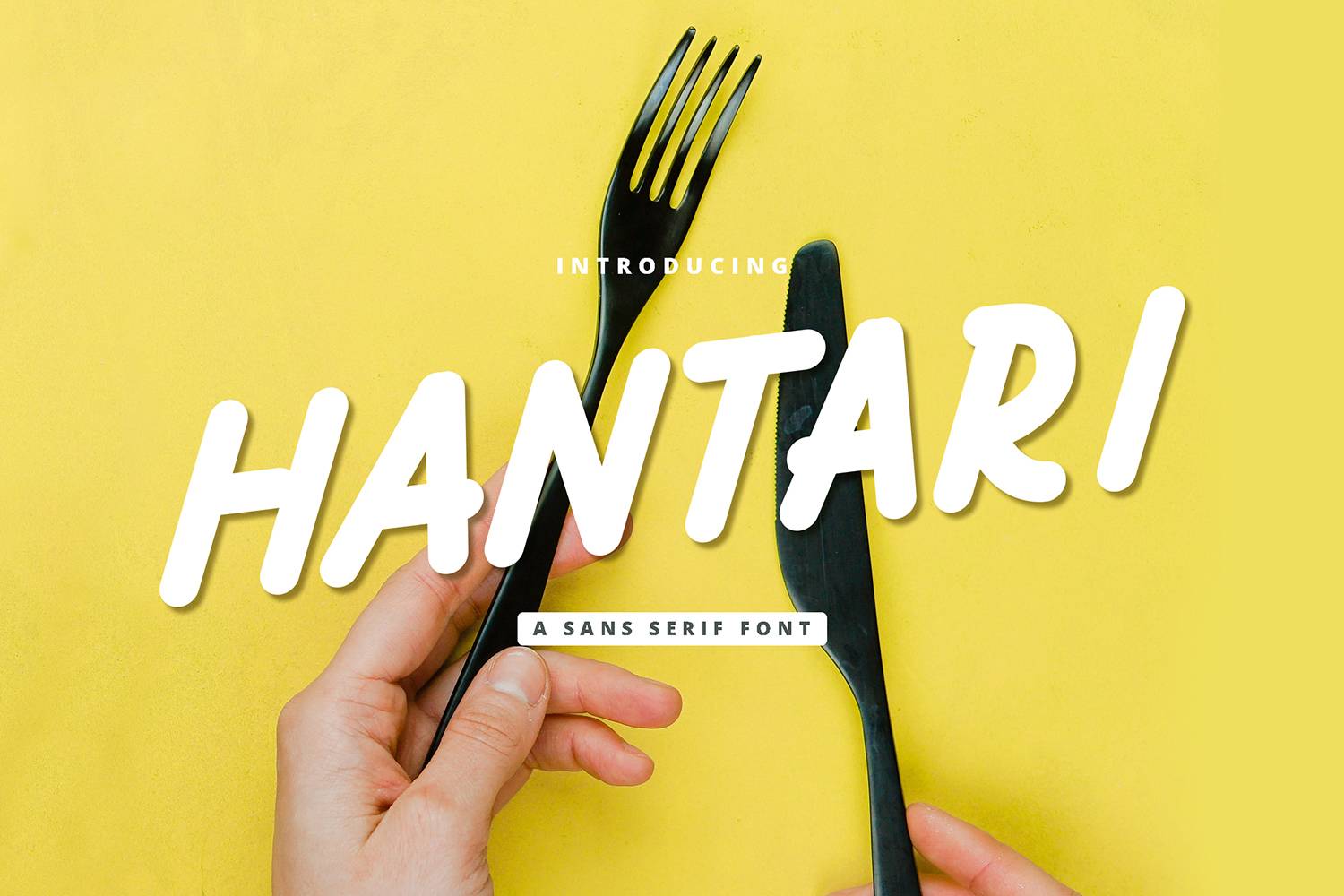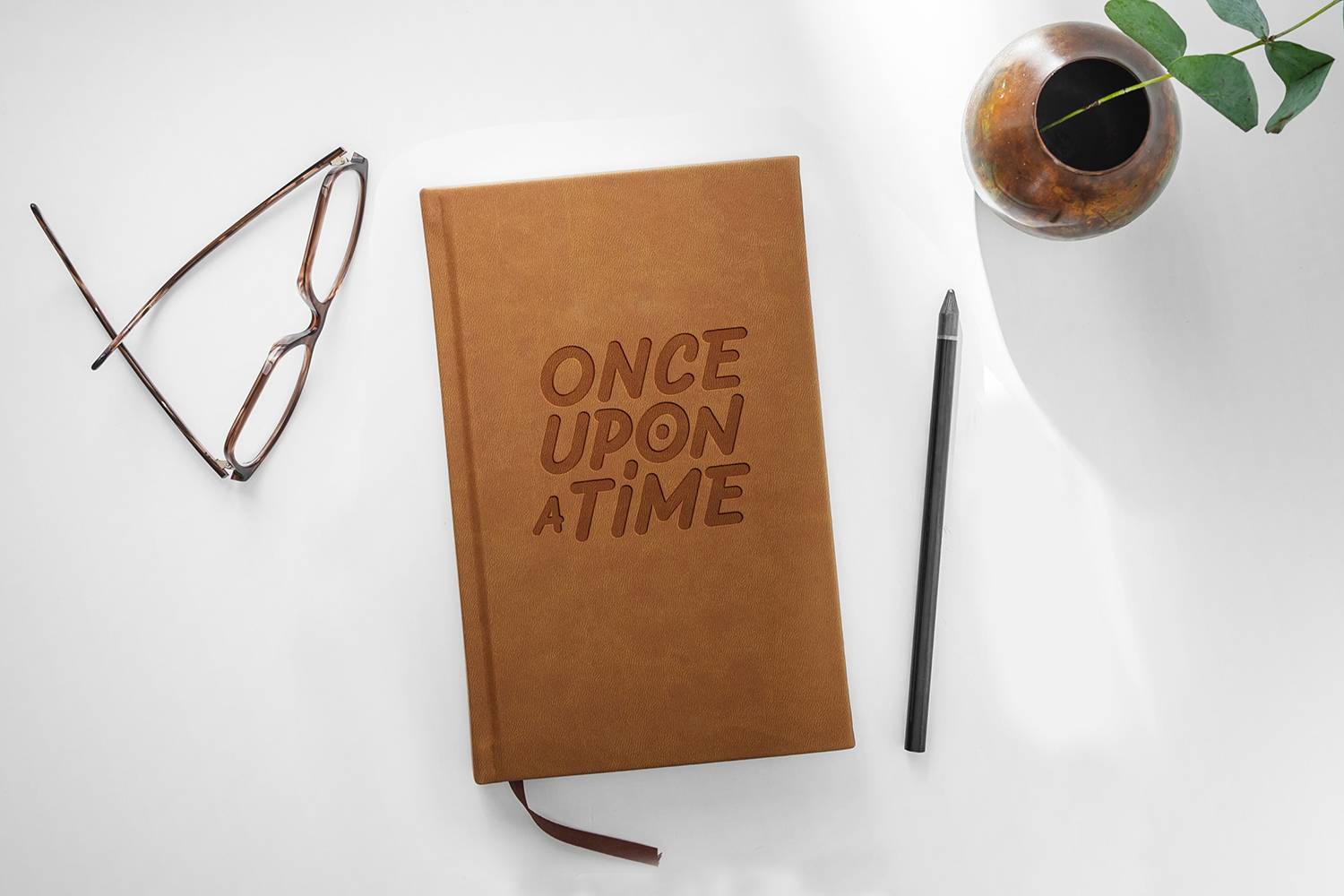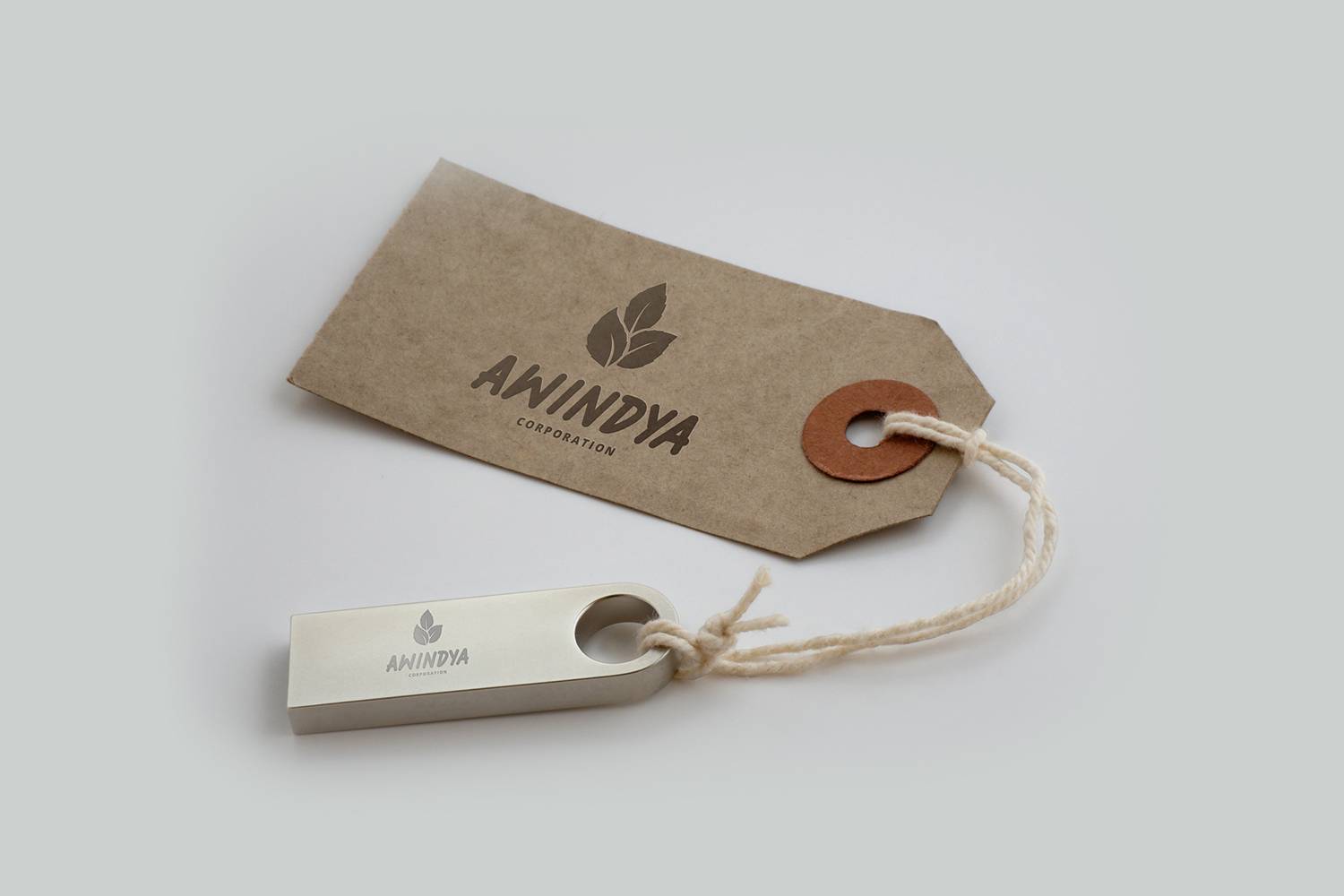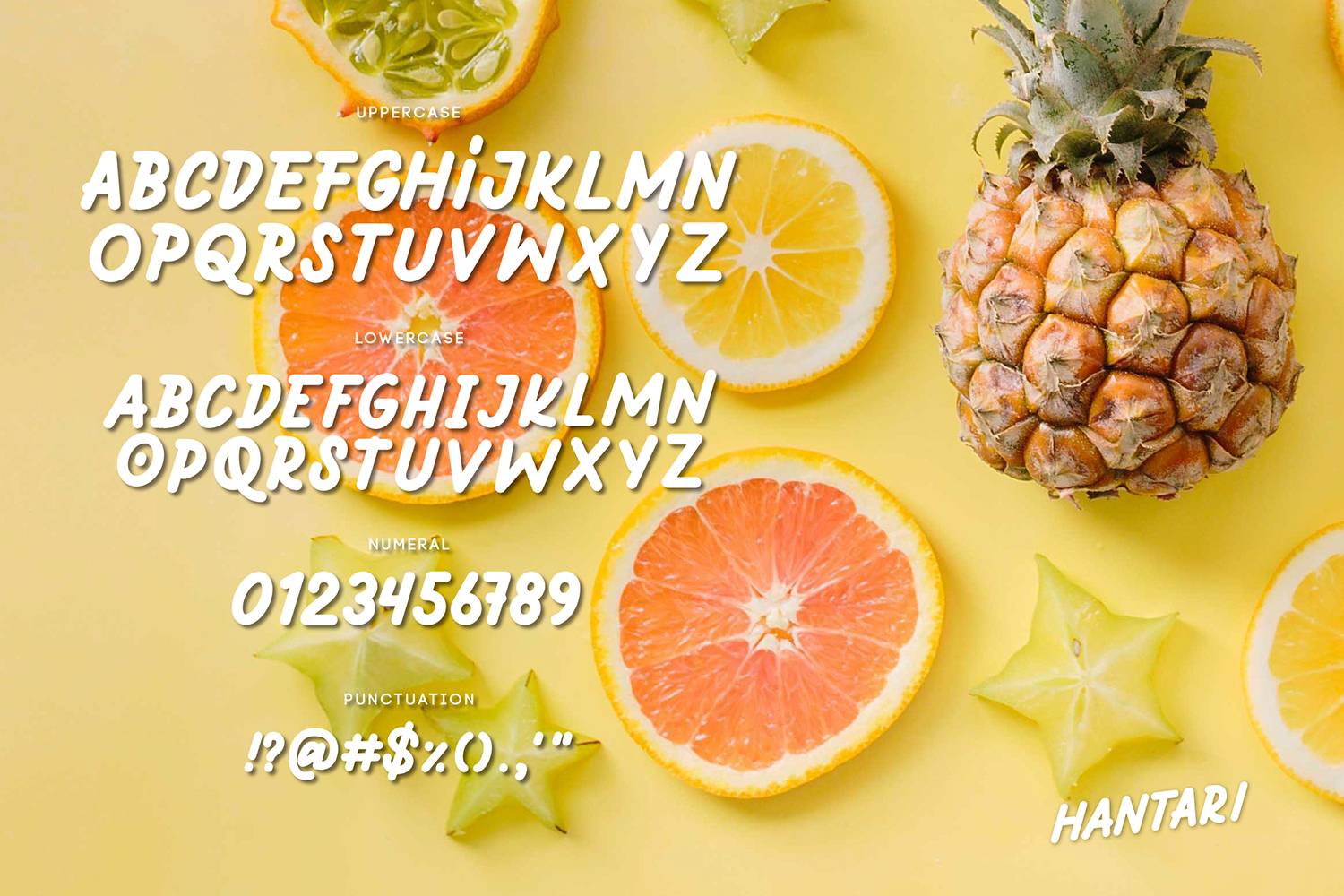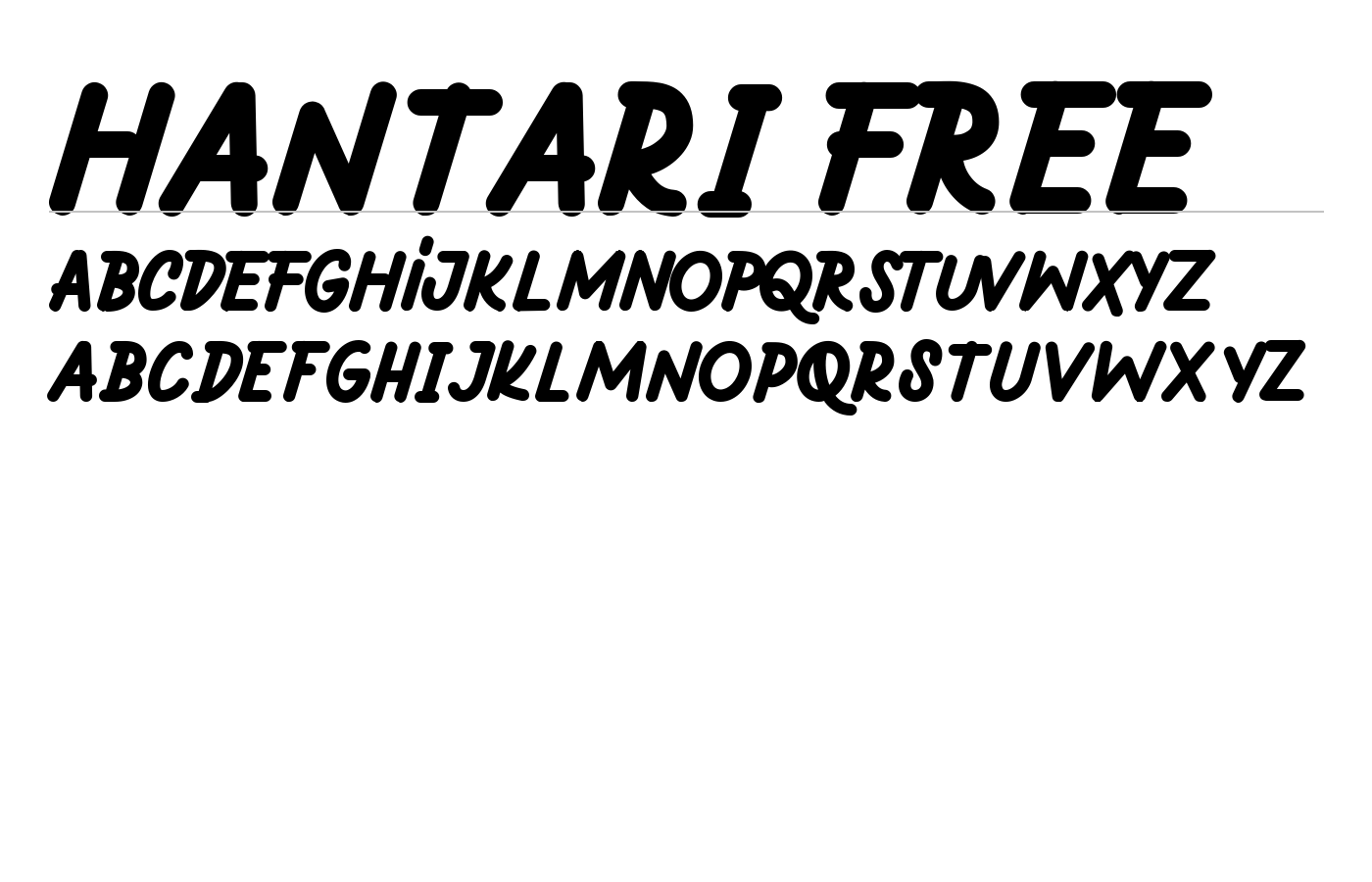
Hantari is a bold and rounded sans serif font with a playful, casual feel. Its smooth, thick strokes and slightly condensed letterforms create a friendly and approachable style, making it ideal for informal branding, headlines, and creative projects. This font works well for designs that want to convey warmth and energy without sacrificing readability.
Hantari Font
About Hantari Font
| Font family | Hantari Font |
| Designer | Inspiratype |